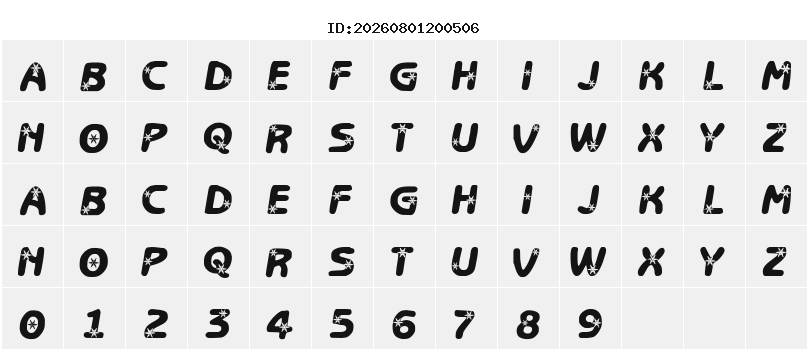
LCR Itz Snowflakes Preview
• Font Name: LCR Itz Snowflakes
• Full Font Name: LCR Itz Snowflakes
About LCR Itz Snowflakes.ttf
LCR Itz Snowflakes.ttf is a modern, elegant sans-serif font designed for ultimate readability and visual harmony. Perfect for branding, headlines, web design, and print materials.